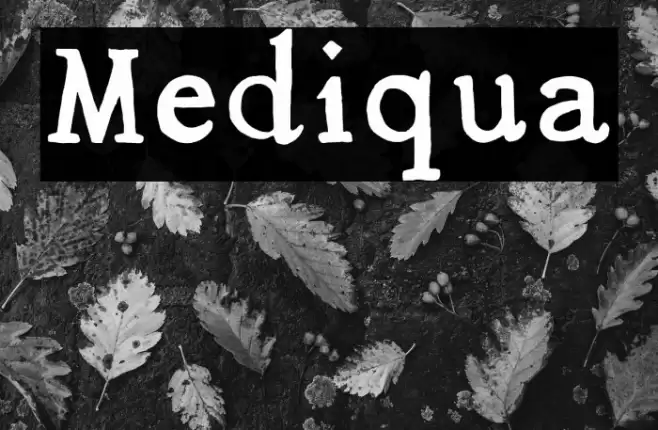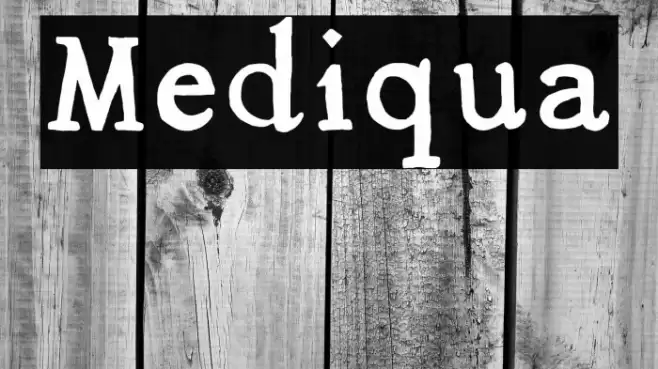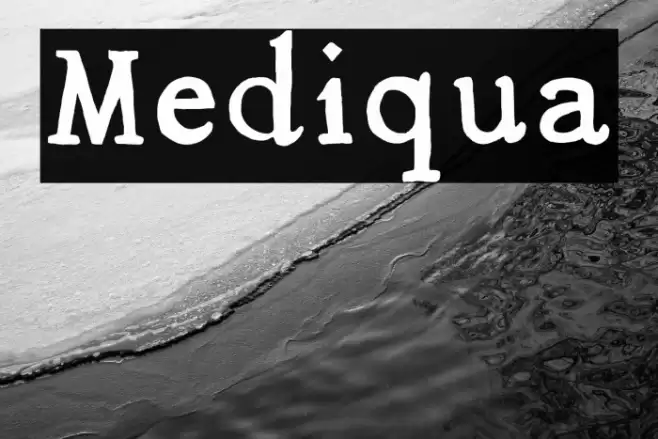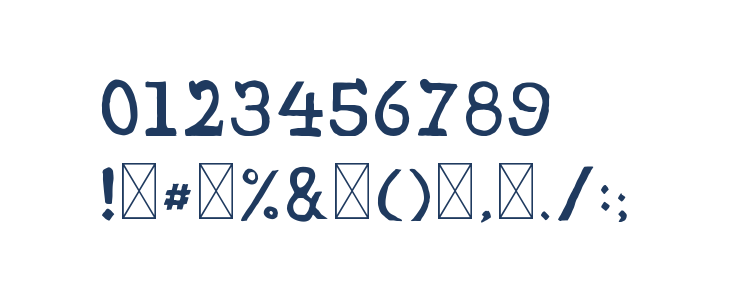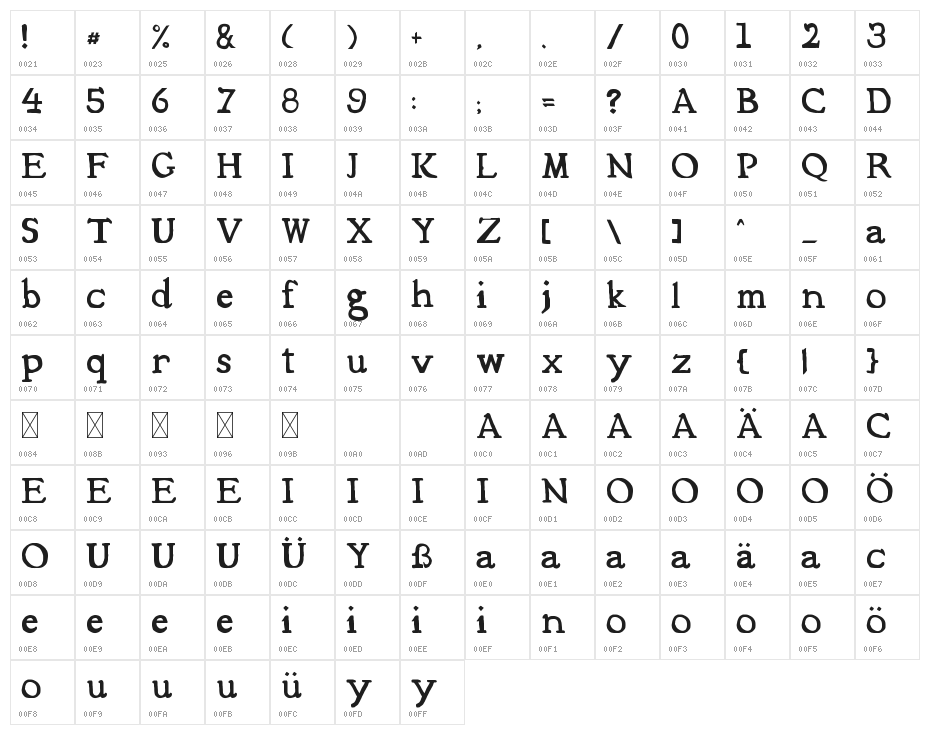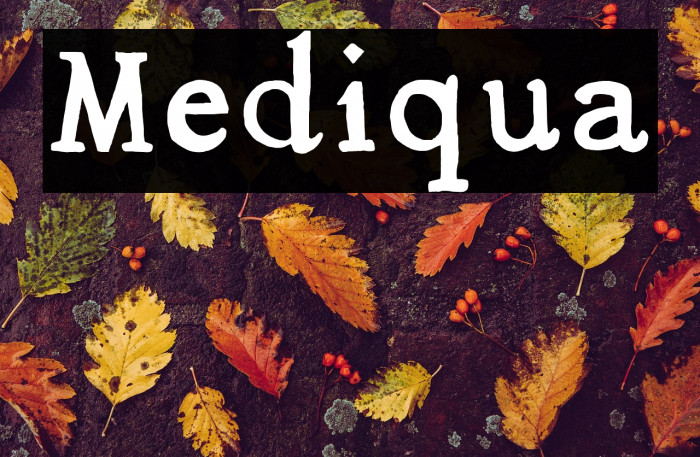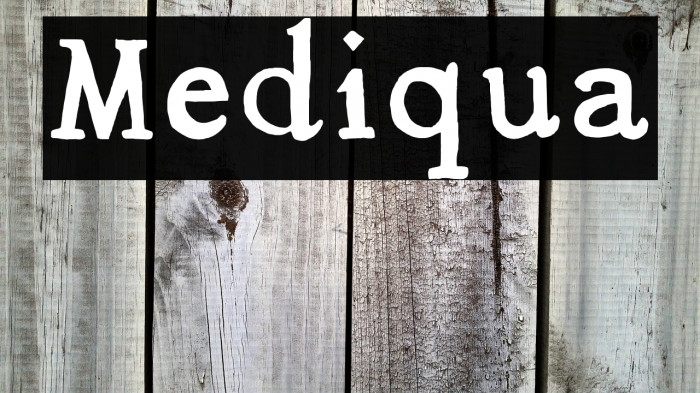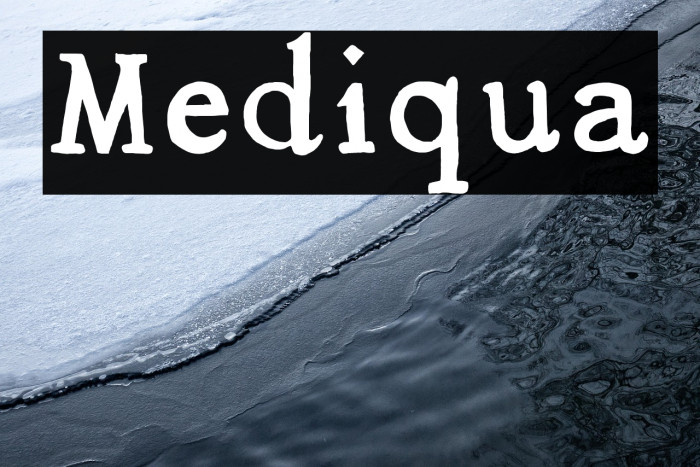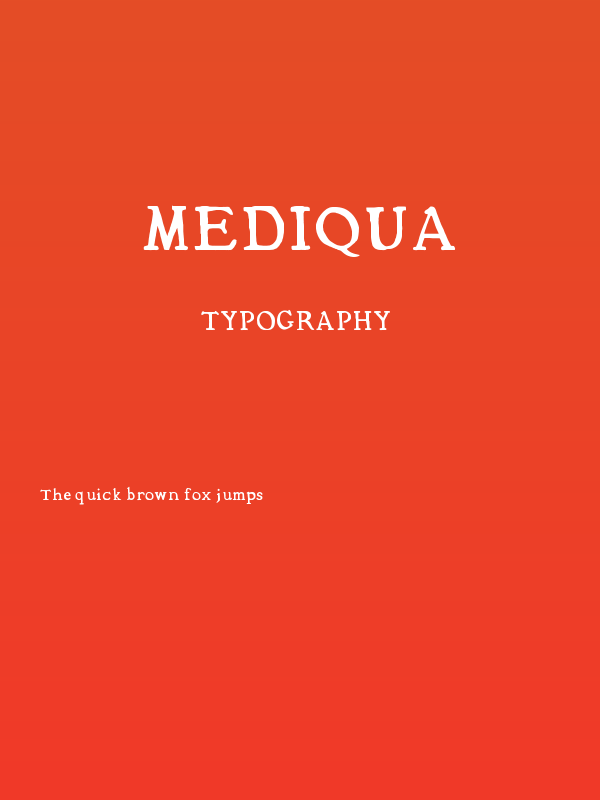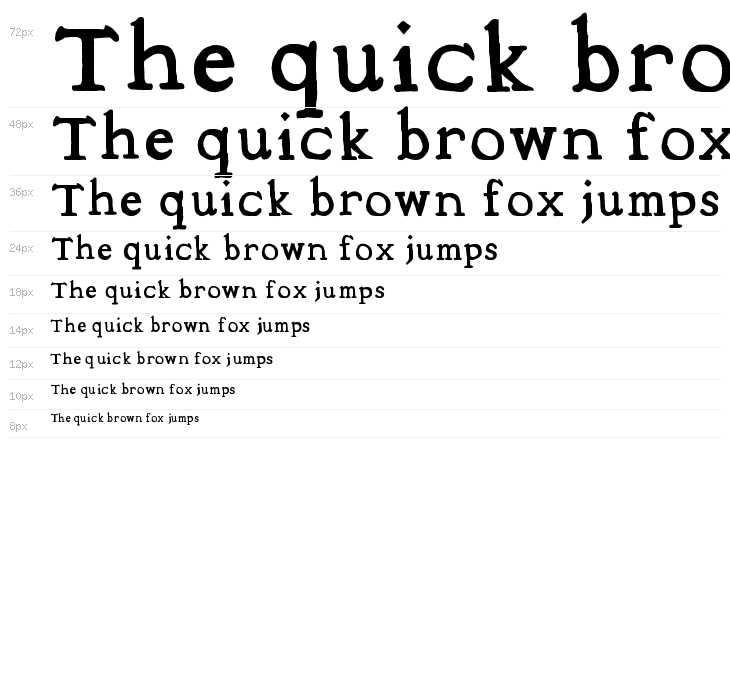
Mediqua Font
Mediqua Description
This font features a distinctive, vintage style with a slightly distressed appearance, giving it a handcrafted feel. The uppercase letters are bold and prominent, with unique serifs that add character and individuality. The lowercase letters maintain a consistent style, with rounded edges and a slightly uneven baseline, enhancing the font's rustic charm. Numbers and special characters are designed to match the overall aesthetic, ensuring a cohesive look across all text. This font is perfect for projects that require a touch of nostalgia or a handcrafted appearance.
A vintage, handcrafted serif font with a distressed look from Regular fonts.
- Proposed Projects: Ideal for branding, packaging, posters, and any design needing a vintage or handcrafted touch.
- Overall Style: Vintage
- Use Case: Headlines, Logos, Branding